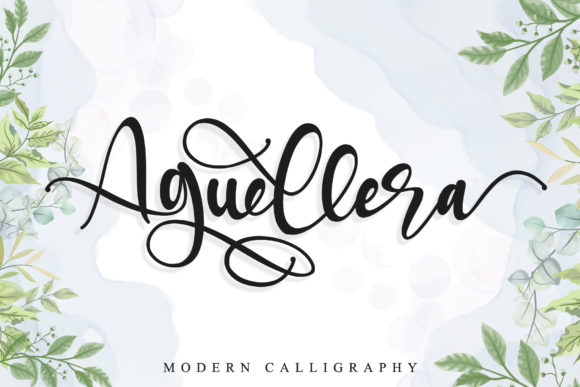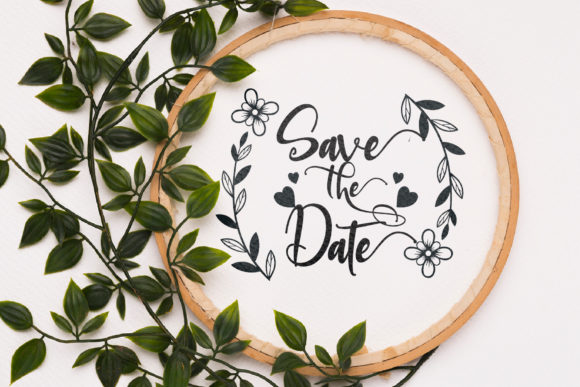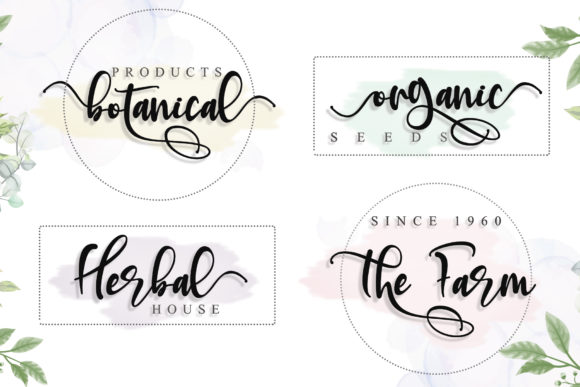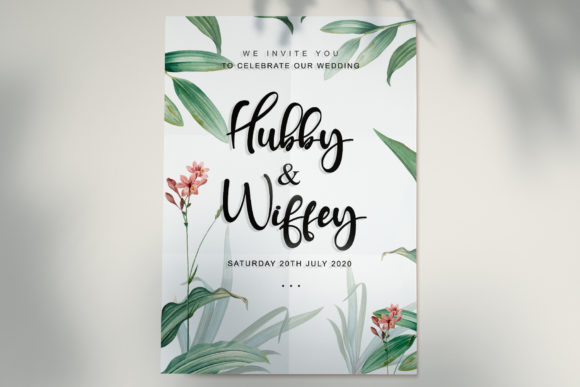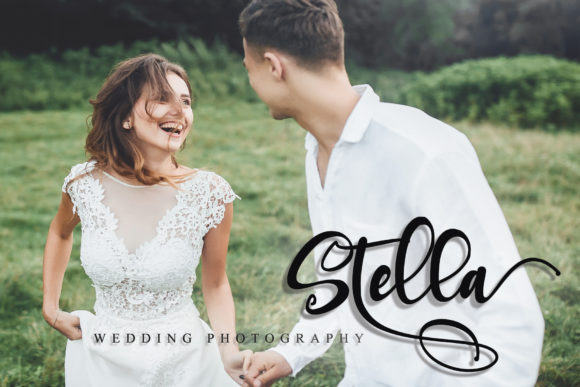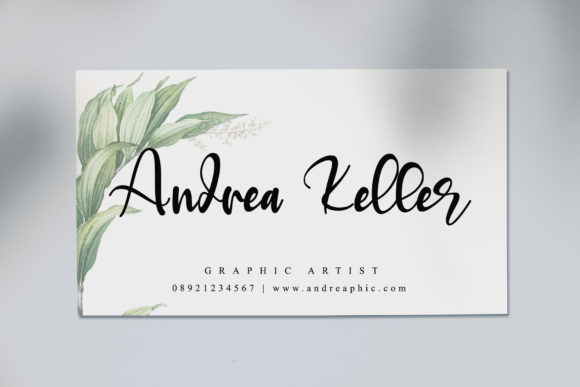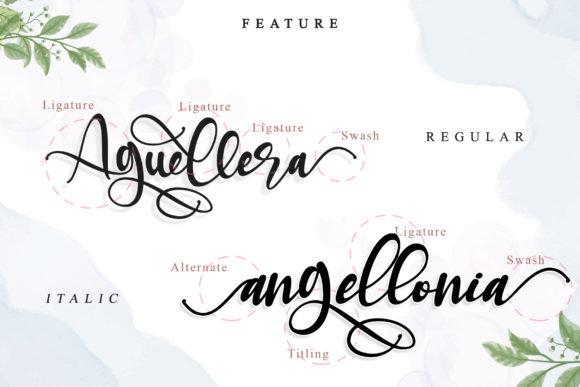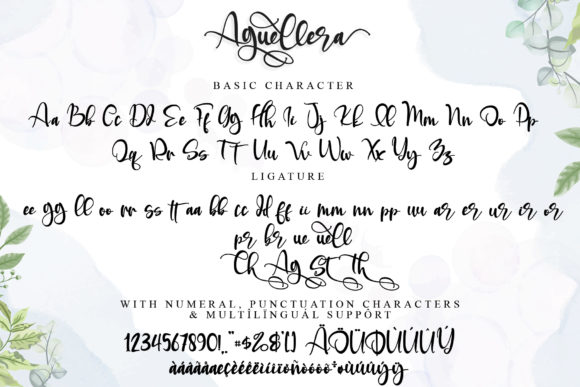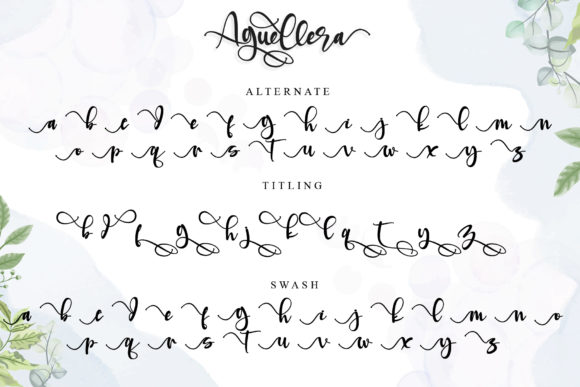
Aguellera Font
Aguellera is a magical font, carefully created with a touch of elegance. This font is PUA encoded which means you can access all of the glyphs and swashes with ease! It features a varying baseline, smooth lines, gorgeous glyphs and stunning alternates.
Aguellera will elevate a wide range of design projects to the highest level, be it branding, headings, wedding designs, invitations, signatures, logos, labels, and much more!